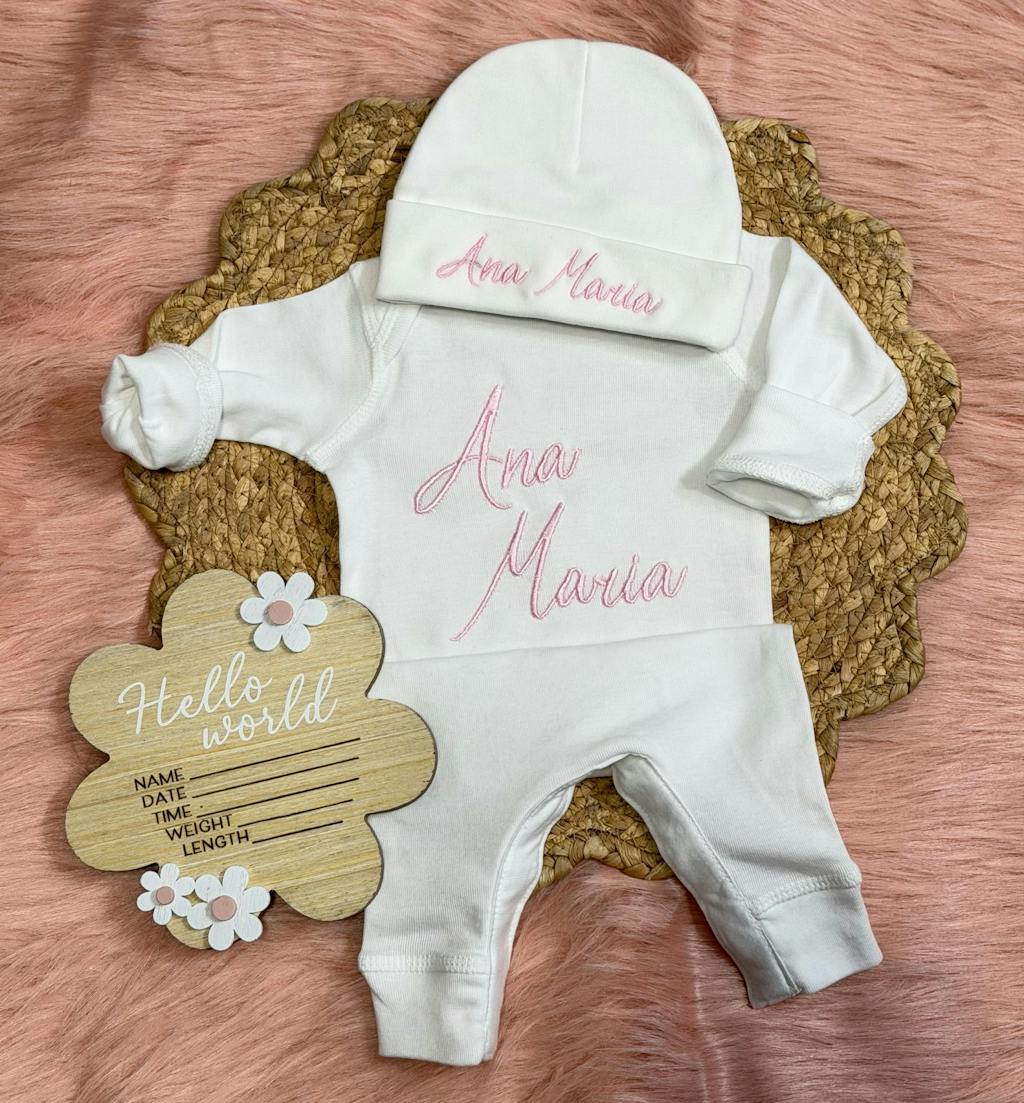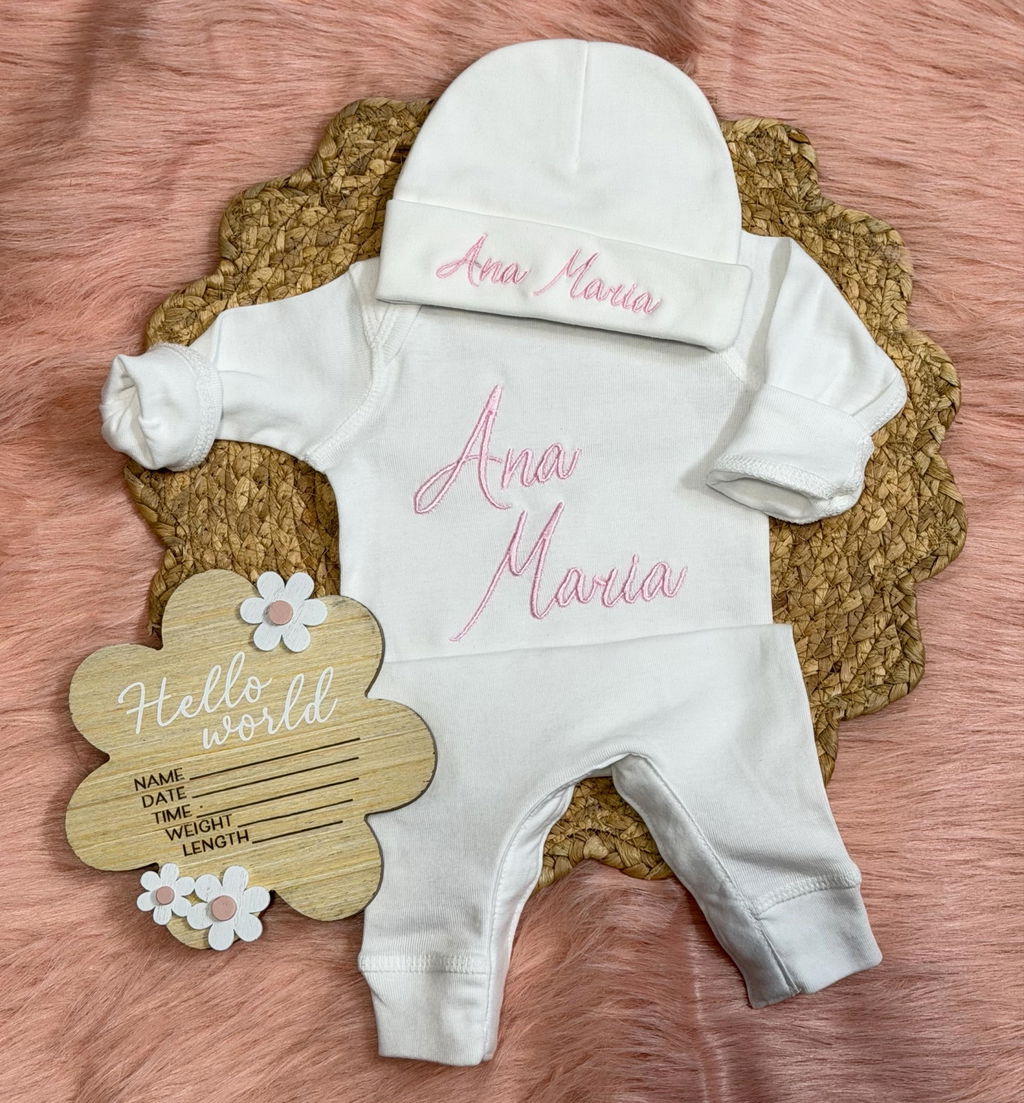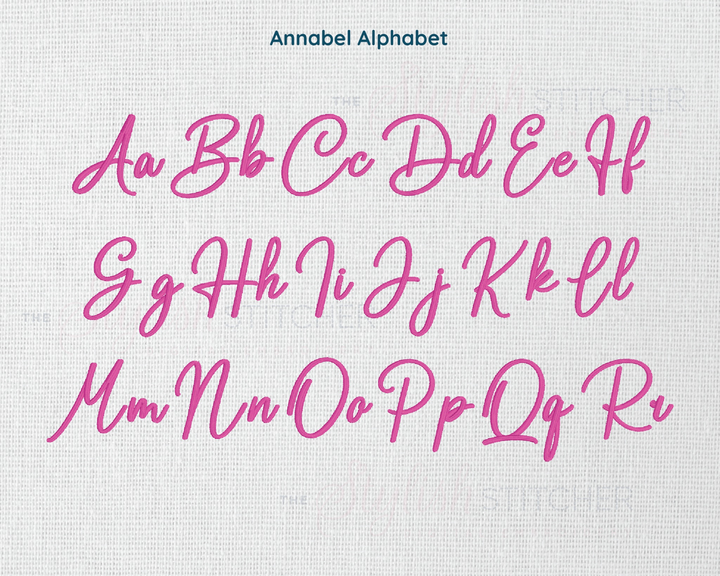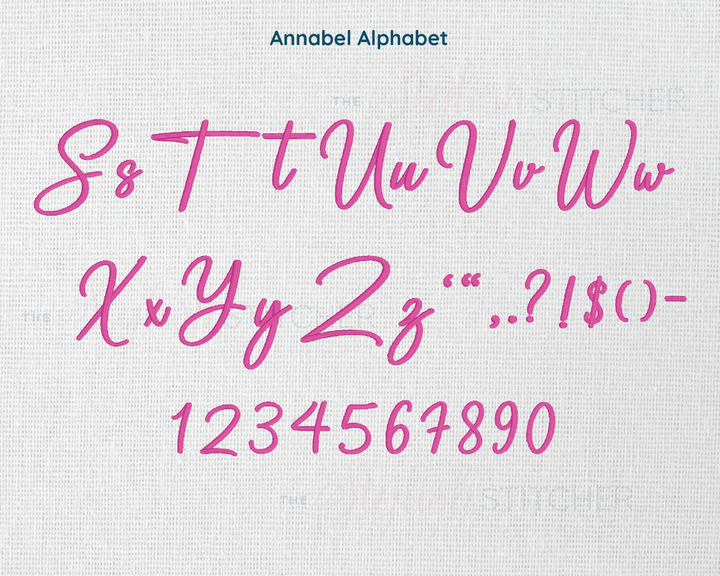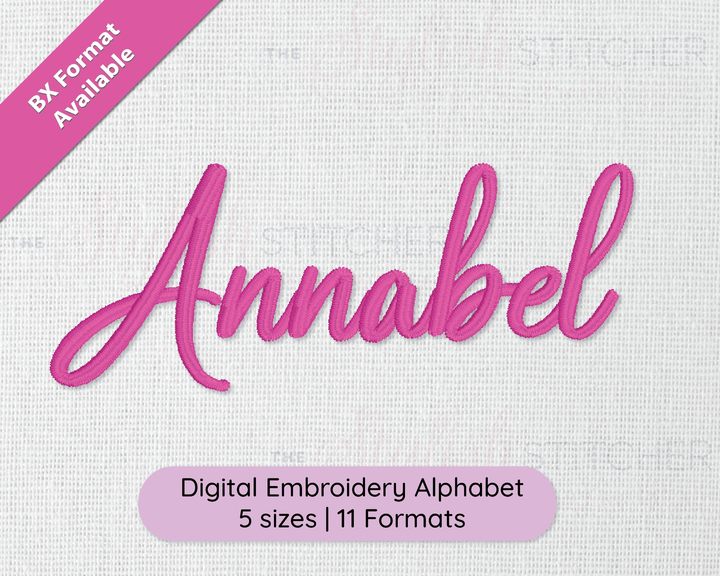
Photograph of Annabel embroidery font
Photograph of Annabel embroidery font alphabet
Annabel Digital Embroidery Font
About Annabel Digital Embroidery Font
Discover the timeless charm of Annabel, the ultimate embroidery font that effortlessly blends elegance with versatility. With its graceful, flowing script, Annabel adds a touch of sophistication to any embroidery project, from monograms and names to quotes and more. Stitch with ease, as its clean lines and smooth curves make for a seamless embroidery experience on various fabrics and materials. Available in multiple file formats for compatibility with your embroidery machine, Annabel is the go-to choice for those seeking to elevate their creations, be it for special events, everyday apparel, or stylish home decor. Upgrade your embroidery game today and let Annabel's timeless appeal transform your projects into works of art.
Included: Uppercase Letters, Lowercase Letters, 8 Punctuation, Numbers
Stitch Type: Satin Stitch & Split Satin Stitch